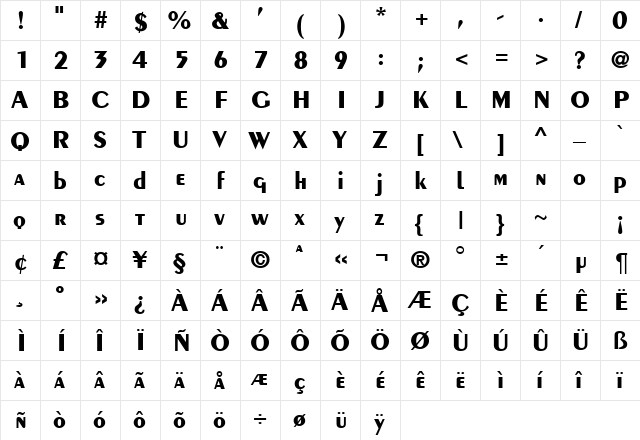
PeilotDB Bold
Design Context for PeilotDB Typeface
PeilotDB takes a measured approach to typography — its balanced proportions and neutral character make it a reliable workhorse for both digital and print work. The heavy weight commands attention and anchors typographic hierarchies.